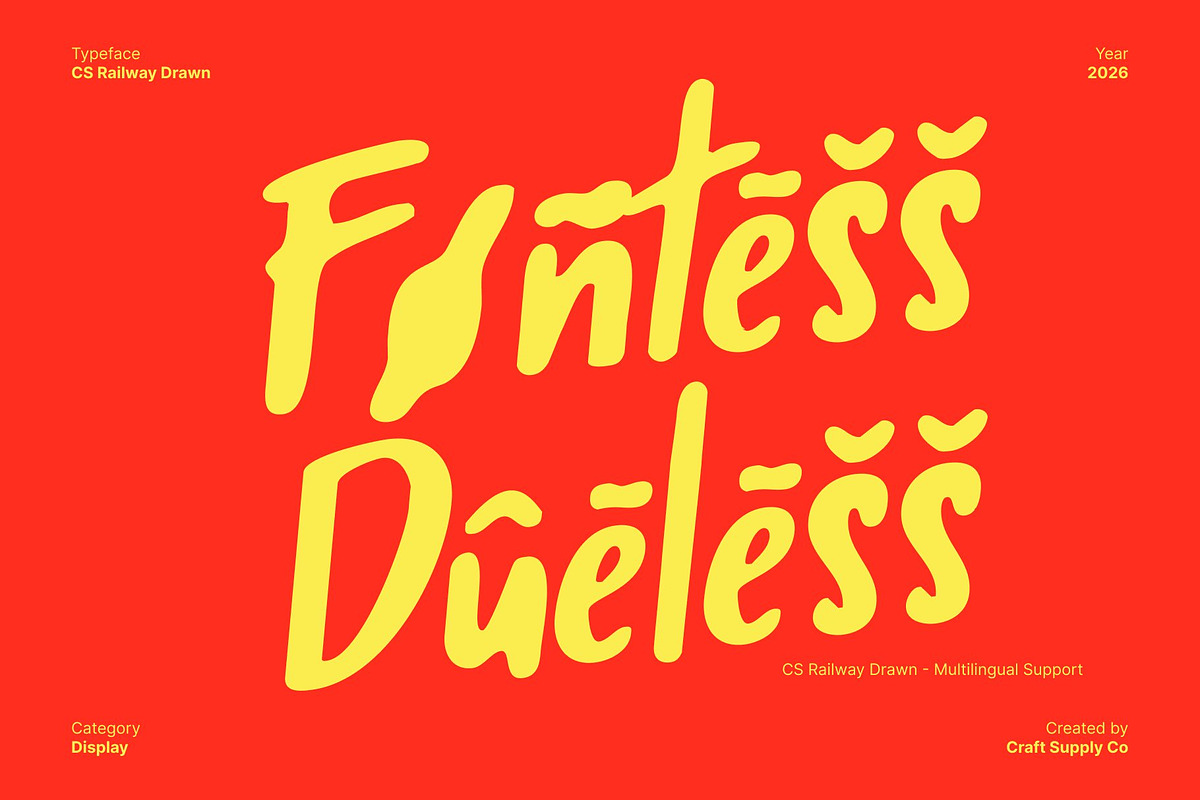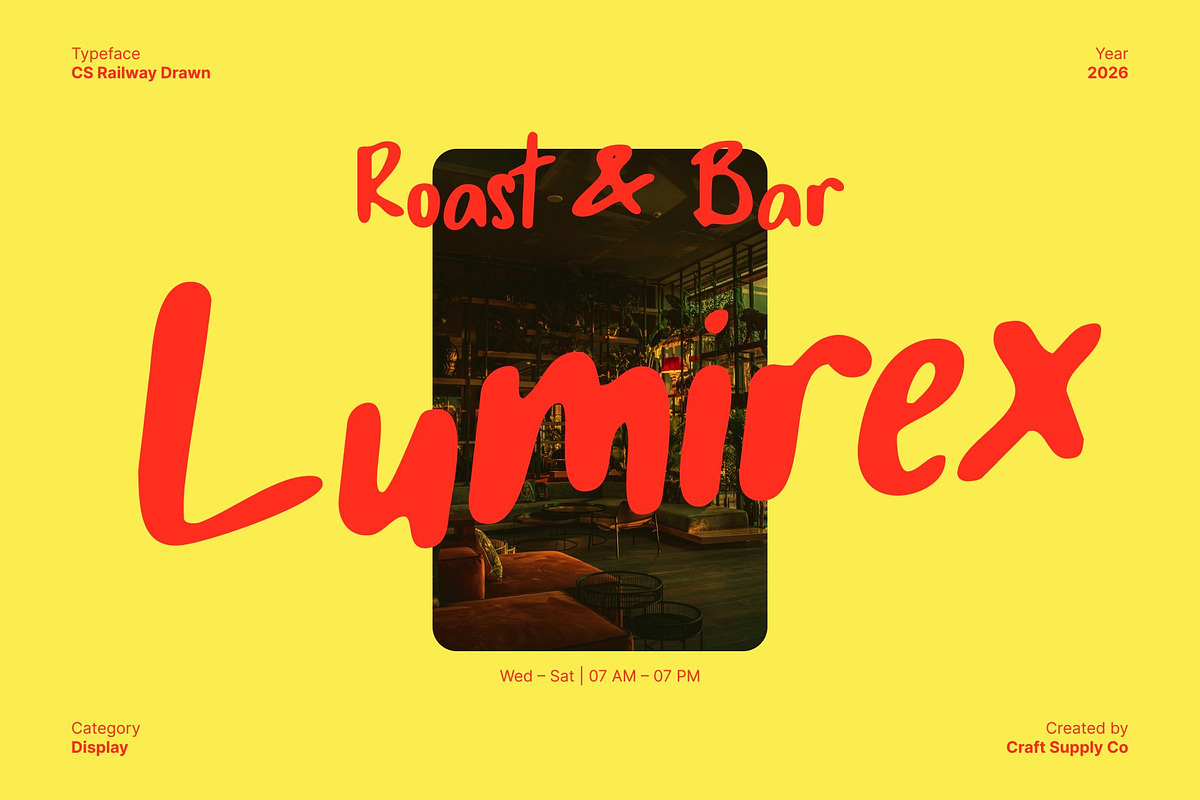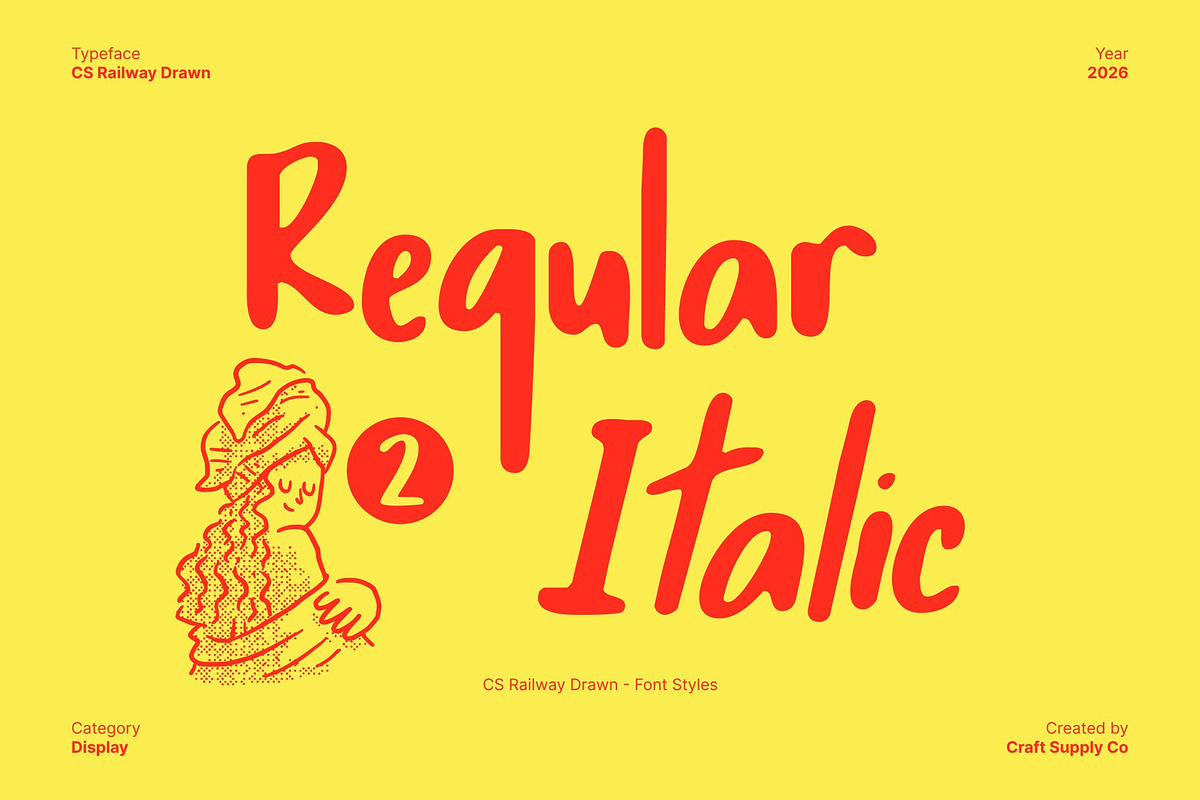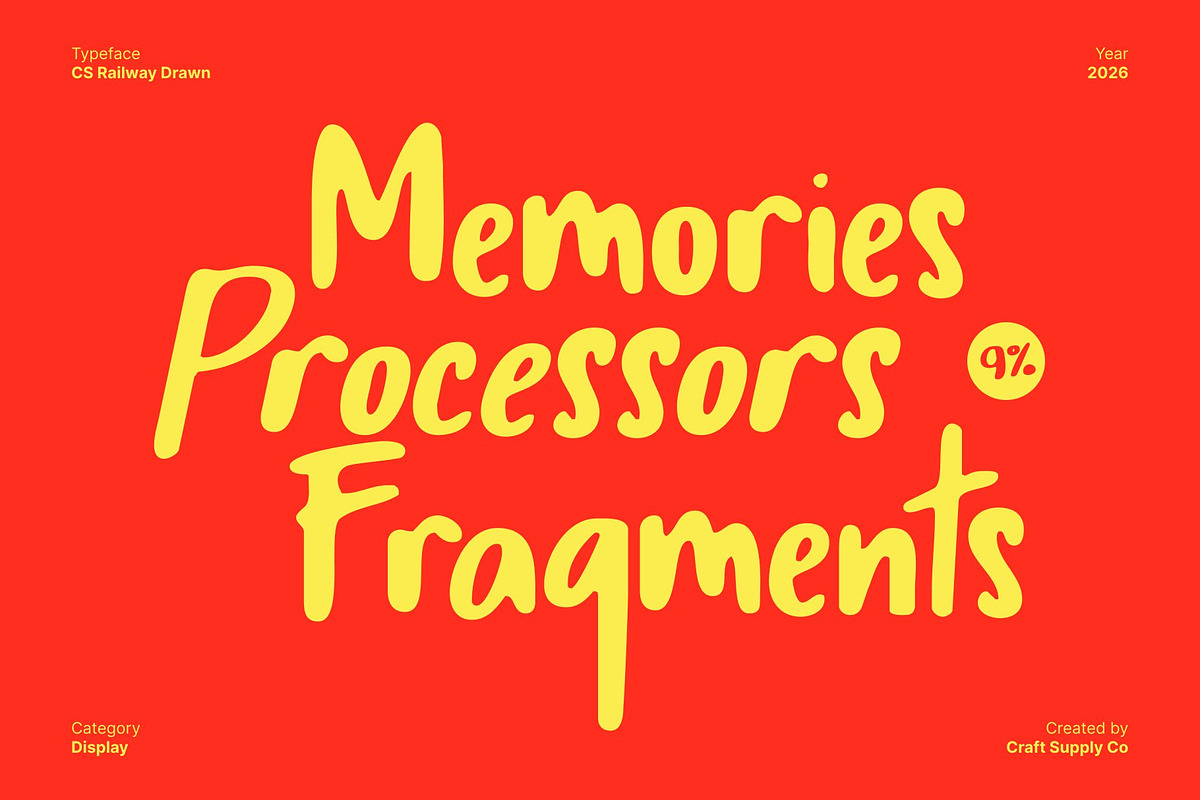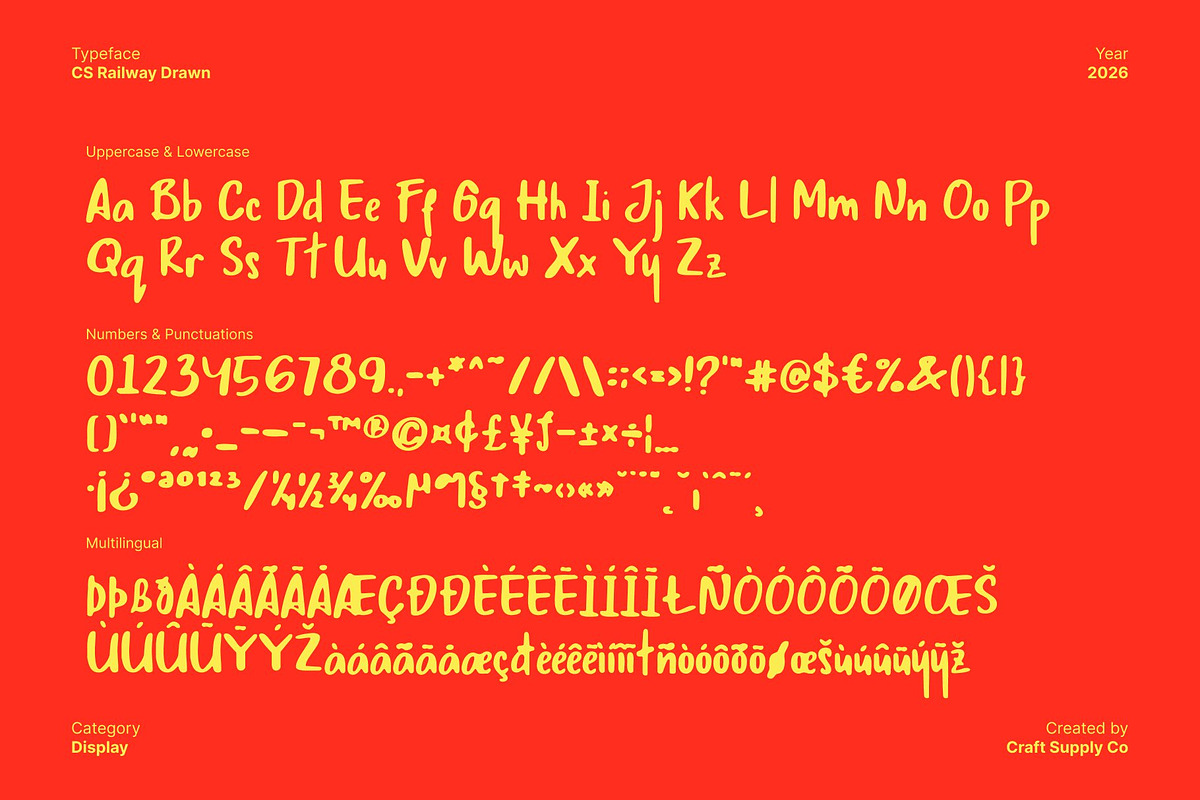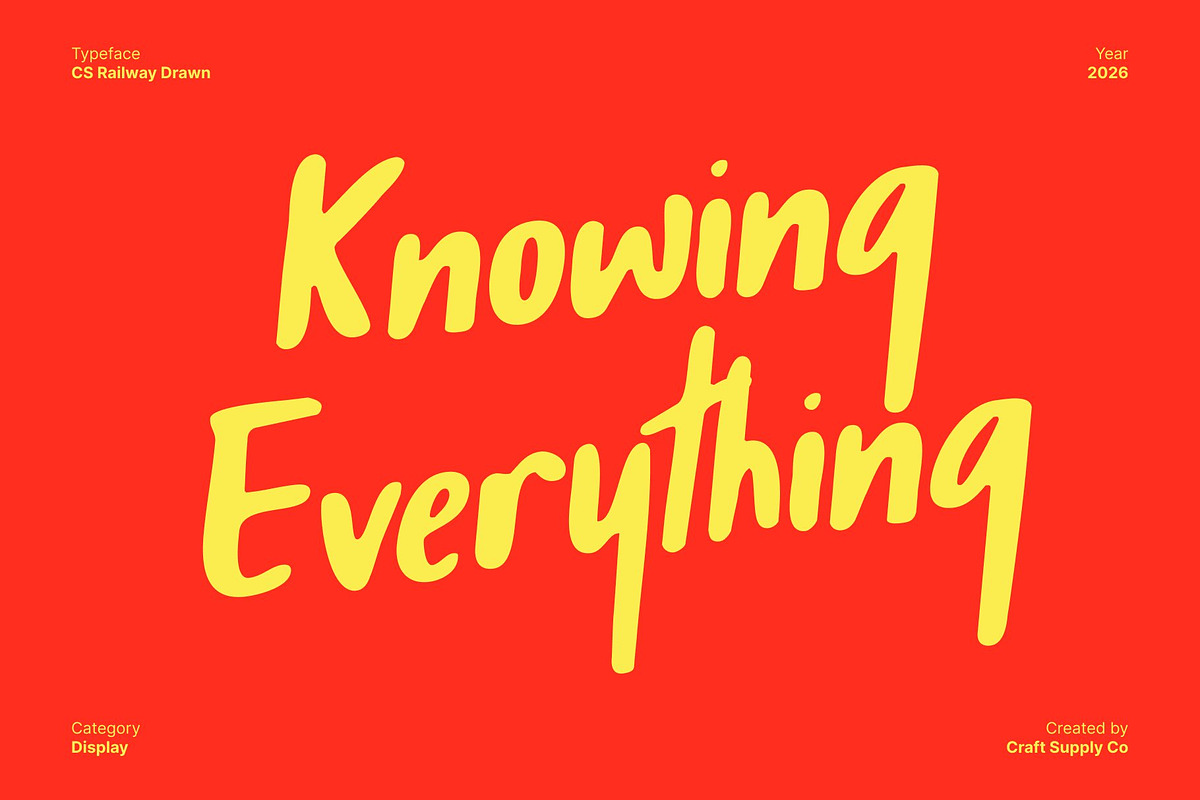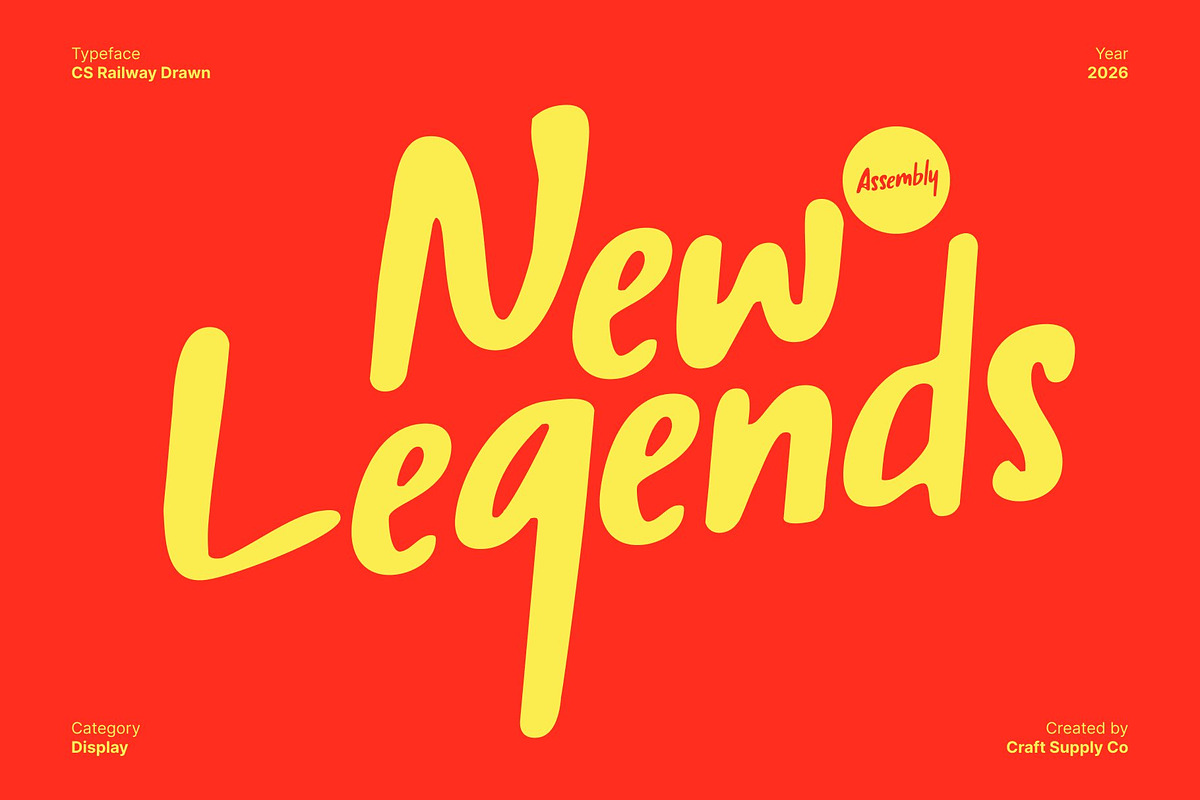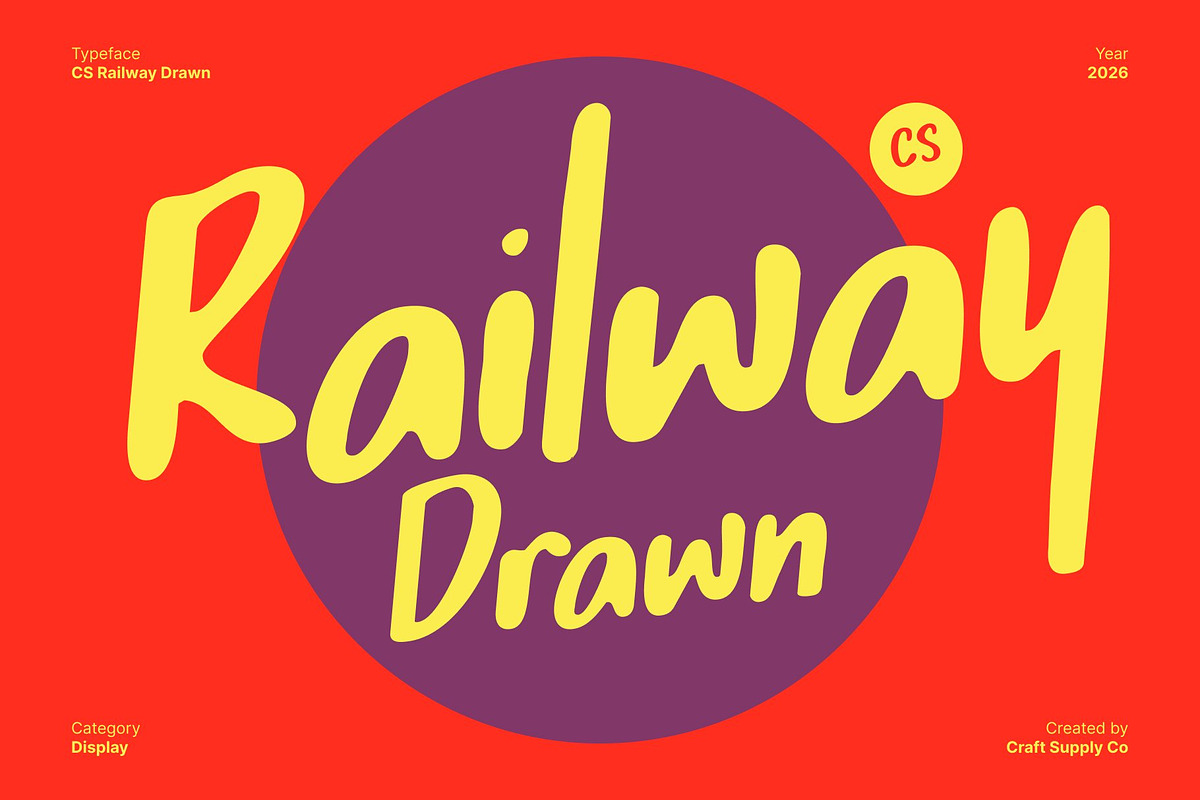
CS Railway Drawn
CS Railway Drawn – Natural Marker Sans Serif with Expressive Handwritten Energy
Authentic Marker Style with Warm Handwritten Character This is a marker-style sans serif font that captures the warmth and spontaneity of natural handwriting. Its fluid strokes reflect the look of hand-drawn letters made with a soft, expressive marker, creating an organic rhythm that feels personal and full of life. The drawn texture adds emotional depth, making every word feel approachable and genuine.
Clean Sans Serif Foundation with Handcrafted Texture Built on a polished sans serif structure, this font balances clarity with creativity. Smooth curves and rounded edges ensure excellent readability, while subtle handmade variations introduce a lively, human touch. This combination allows the font to remain neat and organized without losing its expressive charm.
Expressive Presence for Branding, Editorial, and Digital Design The distinctive marker texture helps this font stand out in modern editorial layouts, creative branding systems, and digital visuals. It works beautifully for headlines, subheadings, quotes, and social media content, adding warmth and authenticity to every composition.
Versatile for Creative, Lifestyle, and Character-Driven Projects Designed for designers who value personality and human expression, this font adapts effortlessly across playful, professional, and artistic contexts. Ideal for posters, packaging, lifestyle branding, and creative campaigns, this font brings a natural, handwritten energy that makes designs feel alive and relatable.
- CS Railway Drawn Regular
- CS Railway Drawn Italic